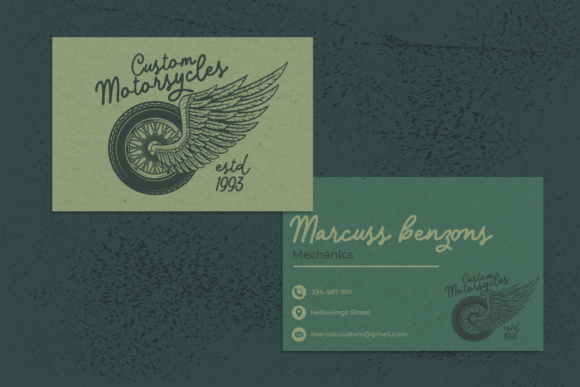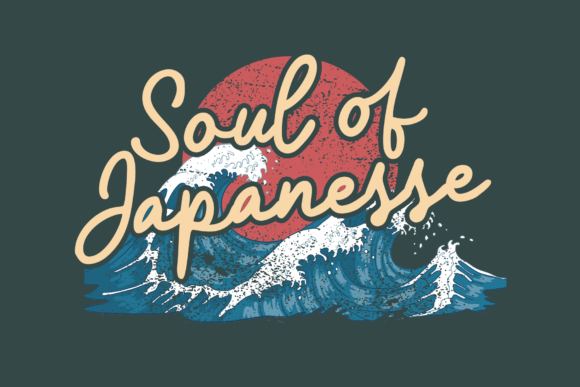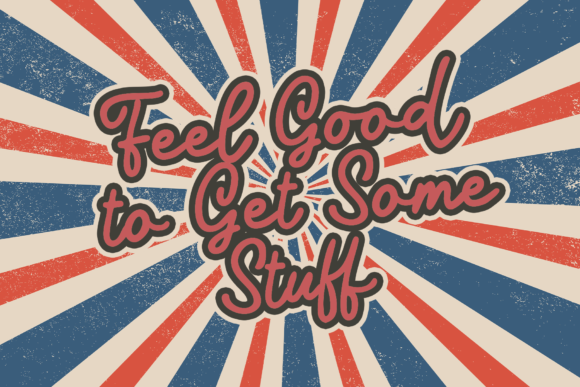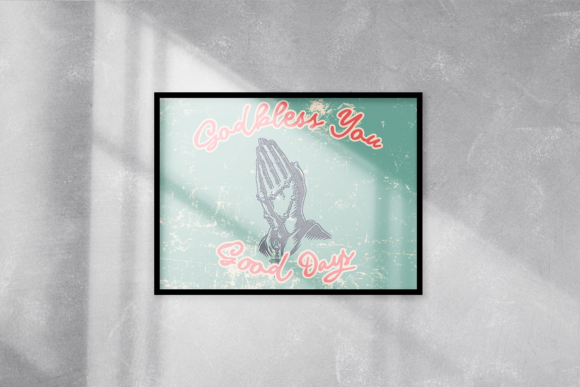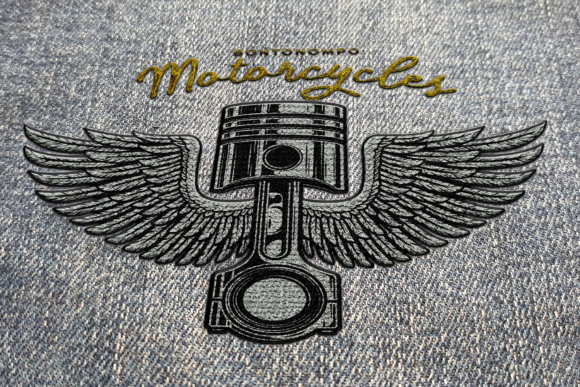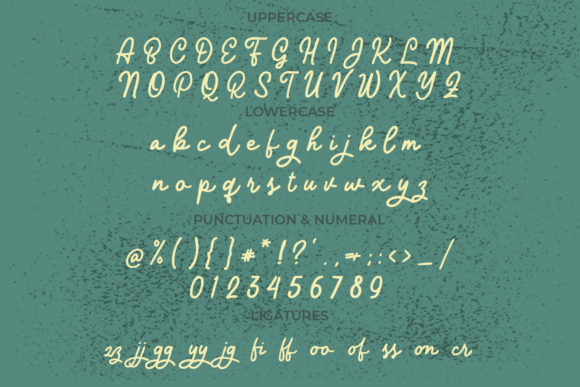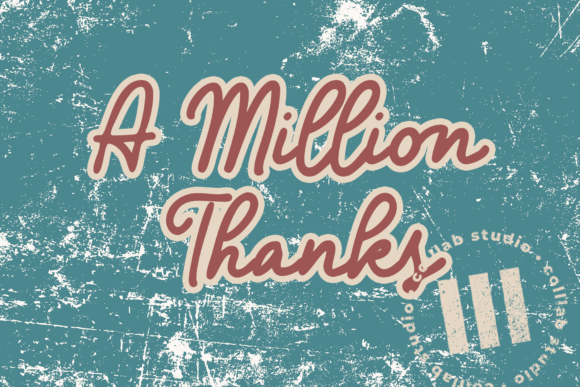
Azzura Lineweight Font
About Azzura Lineweight Font
Azzura Lineweight is inspired by classic typography and brings its own unique style to any design project. This fantastic handwritten font is best suited for headlines of all sizes, as well as for blocks of text that have both maximum and minimum variations. Whether it’s for web, print, moving images or anything else – Azzura Lineweight will look spectacular.